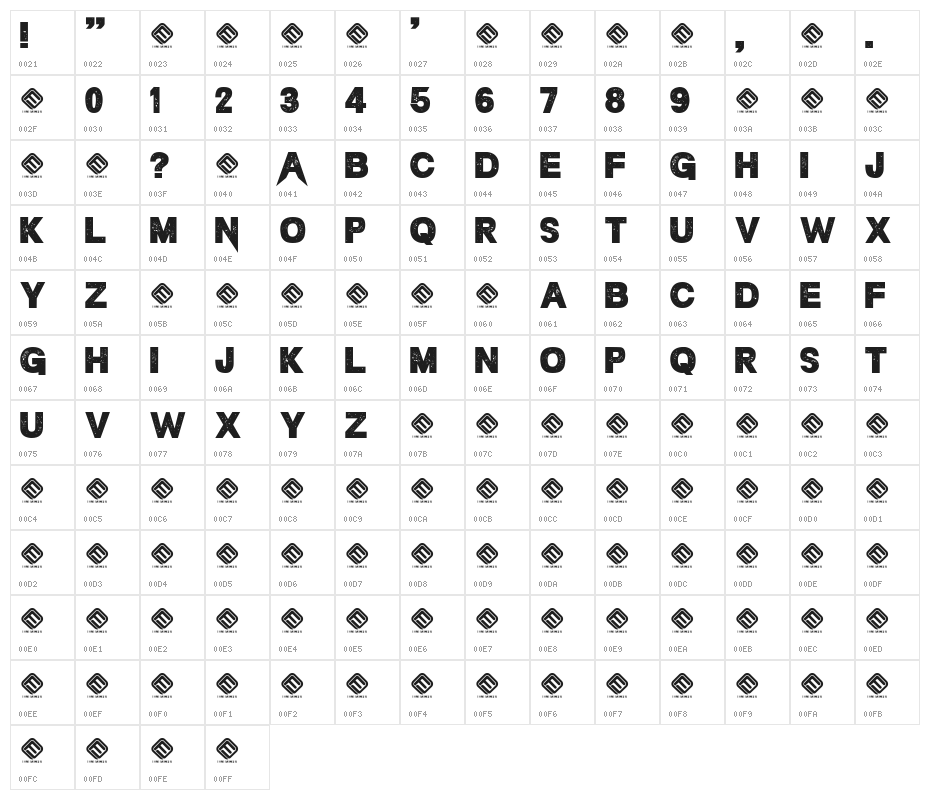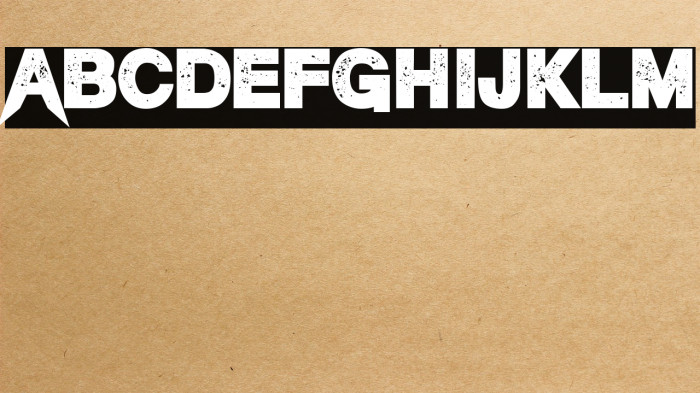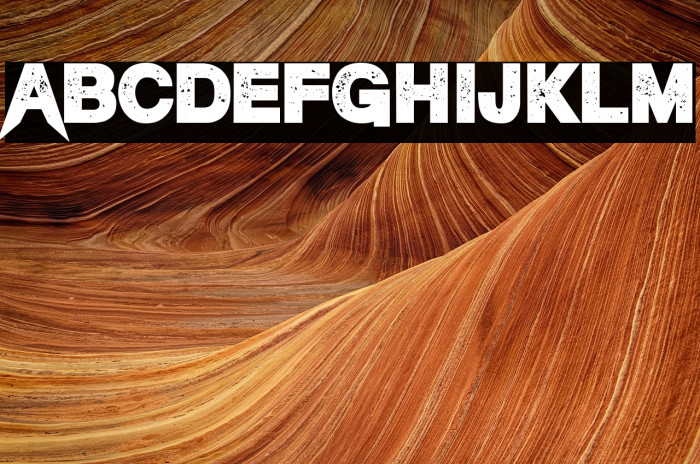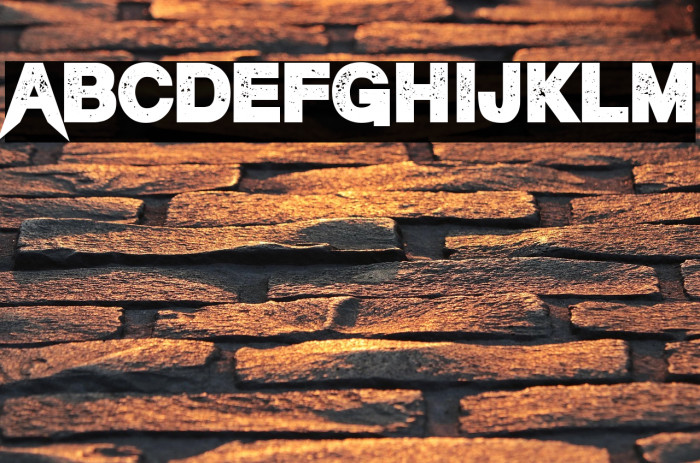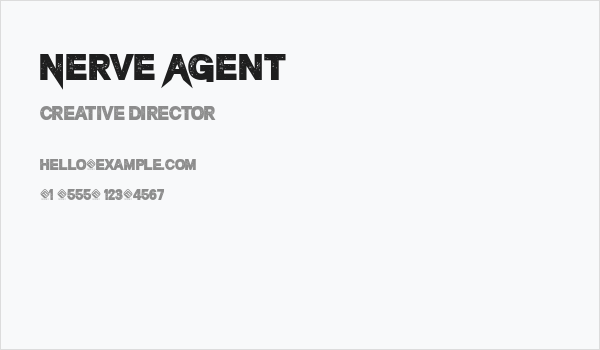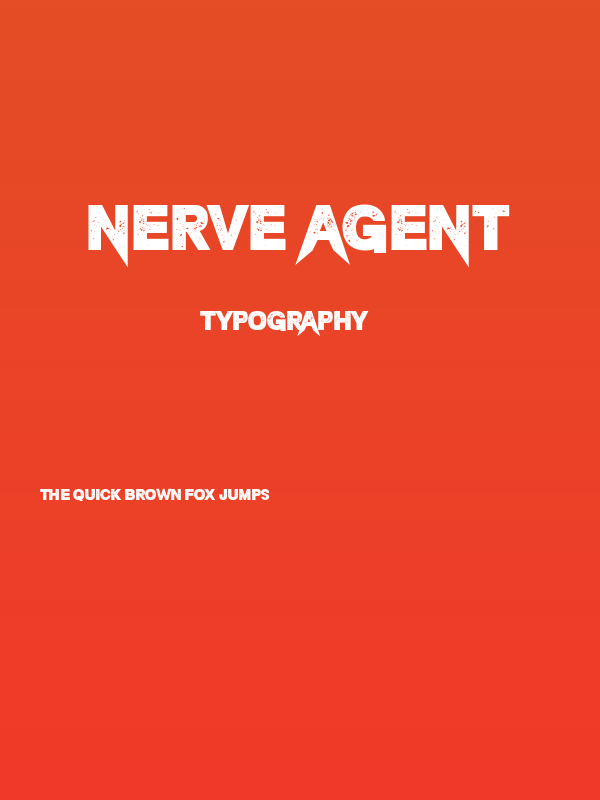
Nerve Agent Font
Nerve Agent Description
This font features a bold and rugged design with a distressed texture, giving it a gritty and industrial feel. The characters are all uppercase, with a consistent thickness and a slightly condensed appearance. The texture within each letter adds a worn, vintage look, making it ideal for projects that require a strong, impactful presence. The numbers and special characters maintain the same distressed style, ensuring a cohesive look across all text elements.
Overall StyleVintage, Industrial
Proposed ProjectsIdeal for posters, album covers, branding for edgy or industrial-themed products, and any design needing a bold, gritty aesthetic.